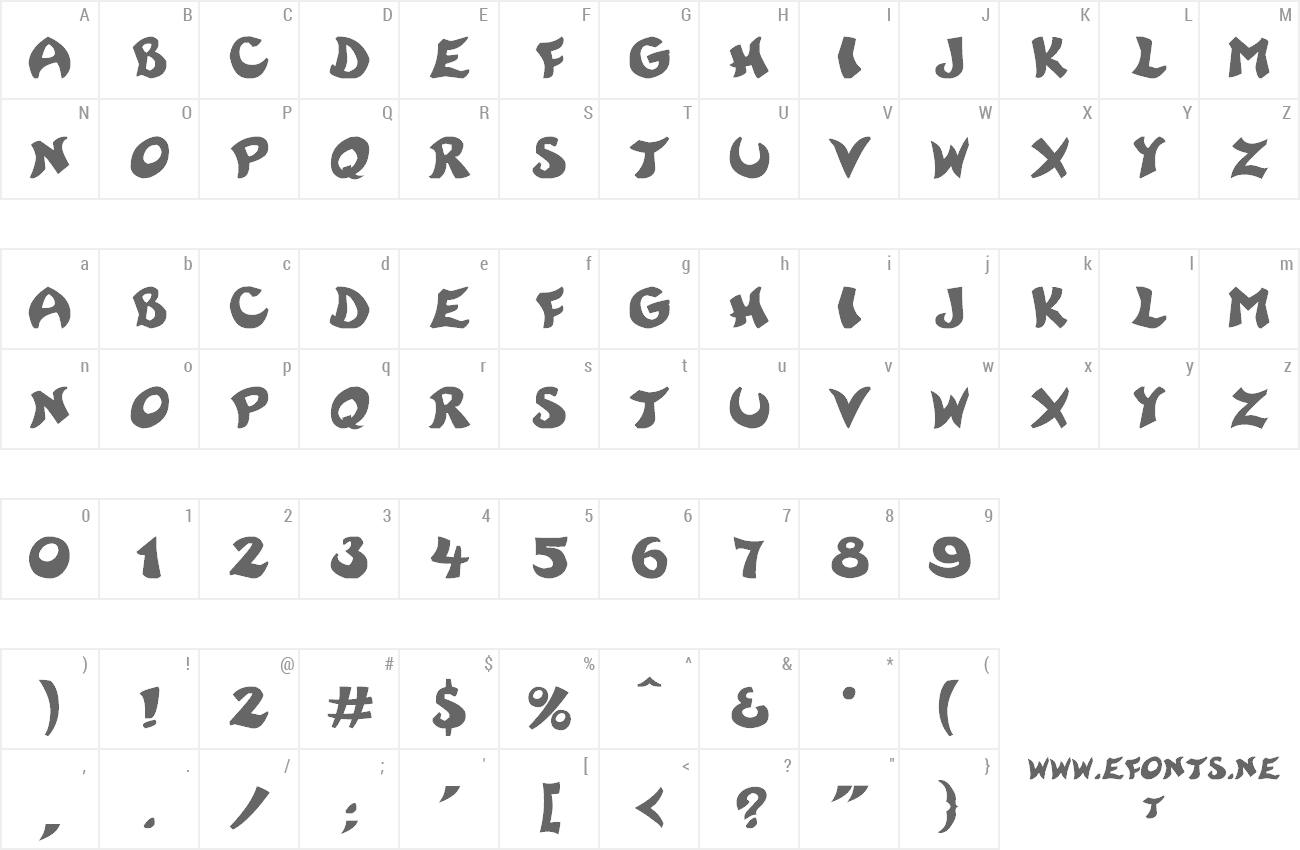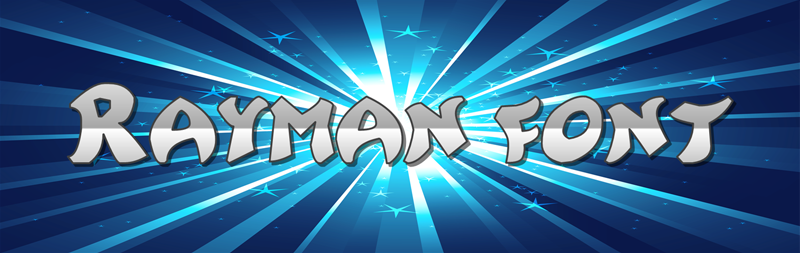
Preview and download Rayman Adventures Font. Created by Michael Segade in Fancy Cartoon styles with Free for personal use license.
Here is a complete version of the font everyone is looking for! The Rayman 2 font was one of the greatest of the series, and nobody has ever found a decent copy! So I decided to devote my time to create a perfectly designed replica of the original! The font is free for personal use and I hope you all like it! I have had no help whatsoever from third parties and the font is complete with accents and currency signs. Please consult me if you are to use the font in sketches, work, art, websites or other personal or productive themes, as we can get to an understanding easily. Thank you for your interest and enjoy the font! (Font created only for DaFONT and RaymanPC.com) (Zodiak Corporation is the creator and copyright holder of this font, inspired by Ubisoft) |